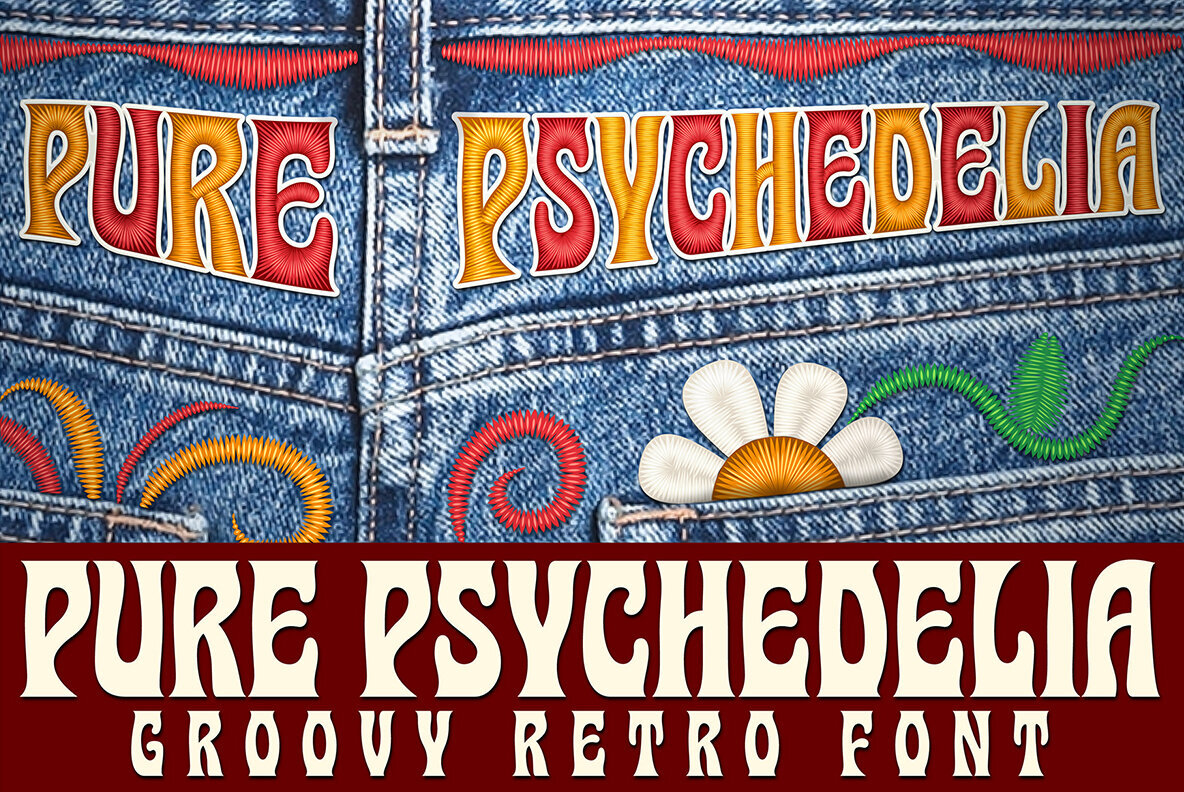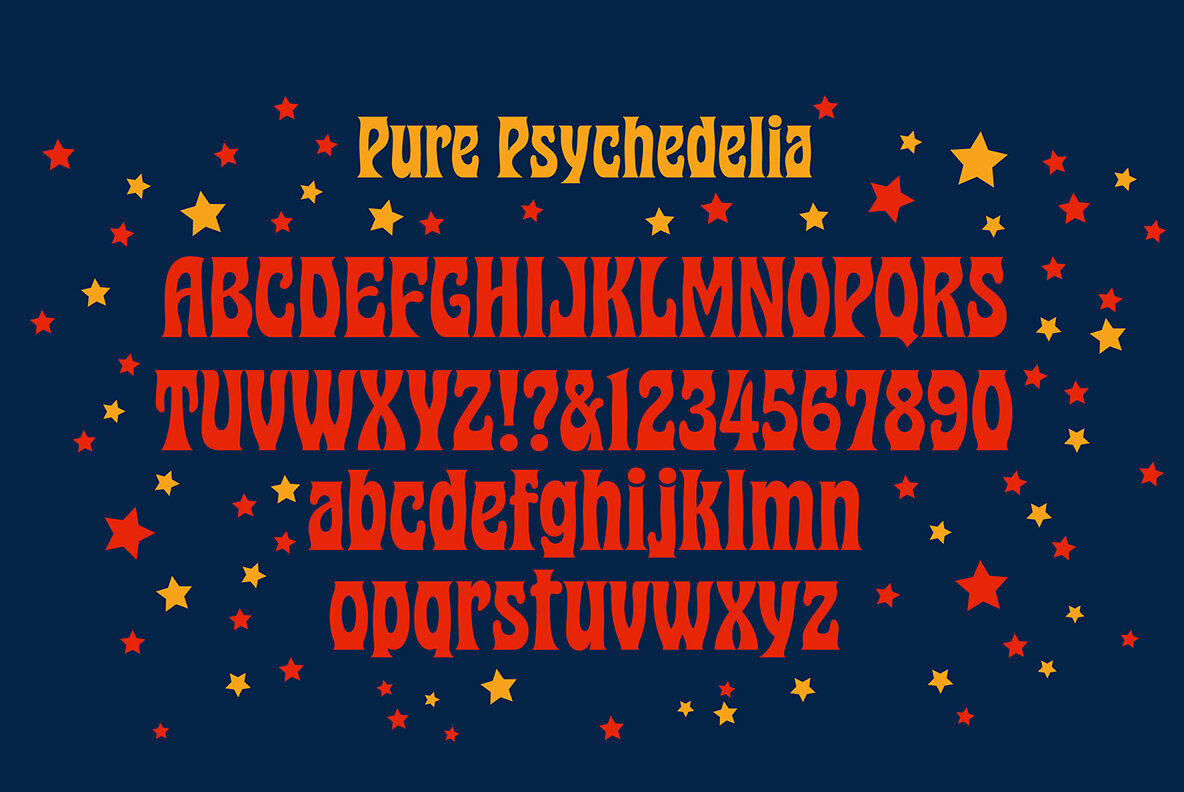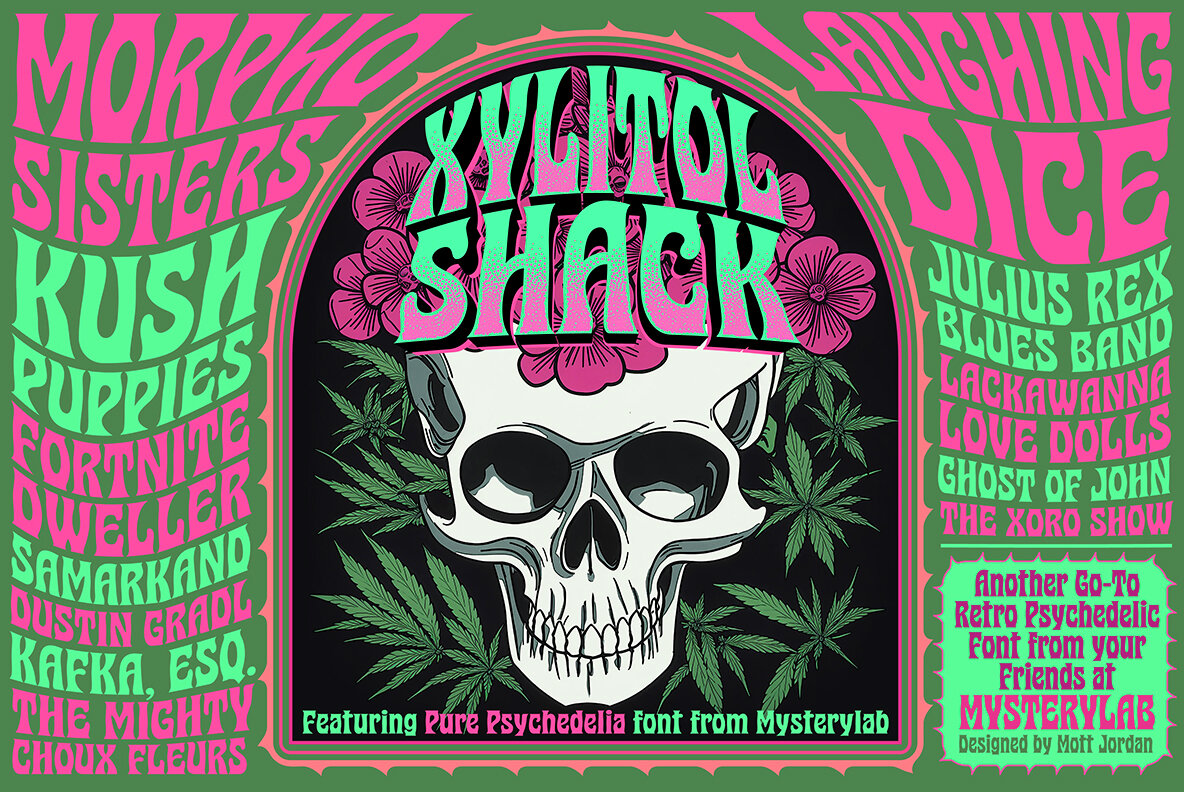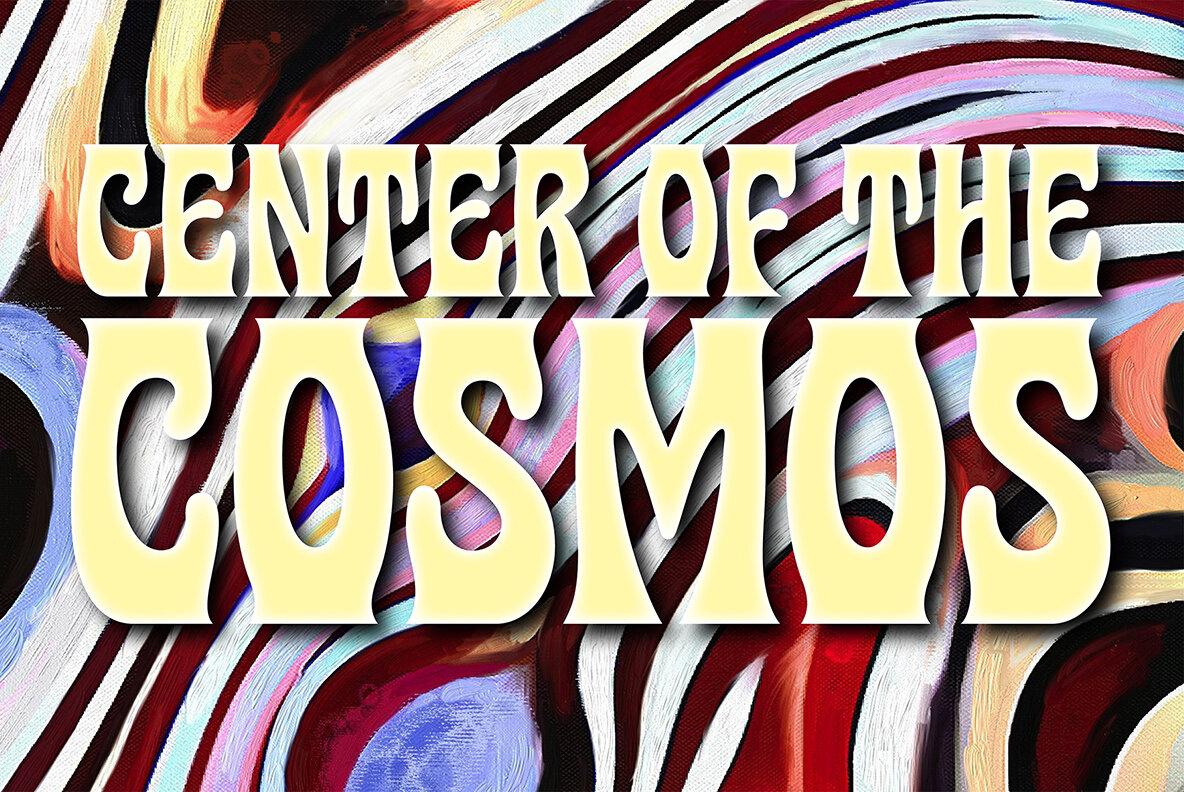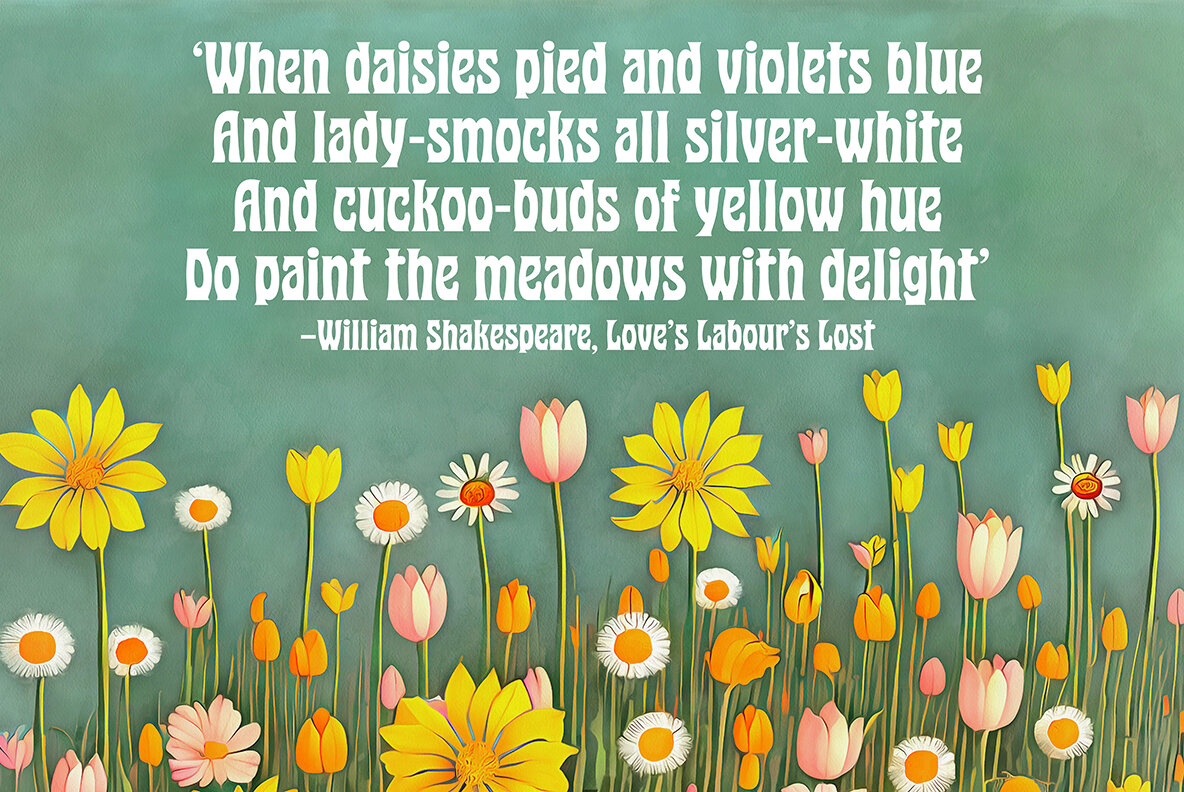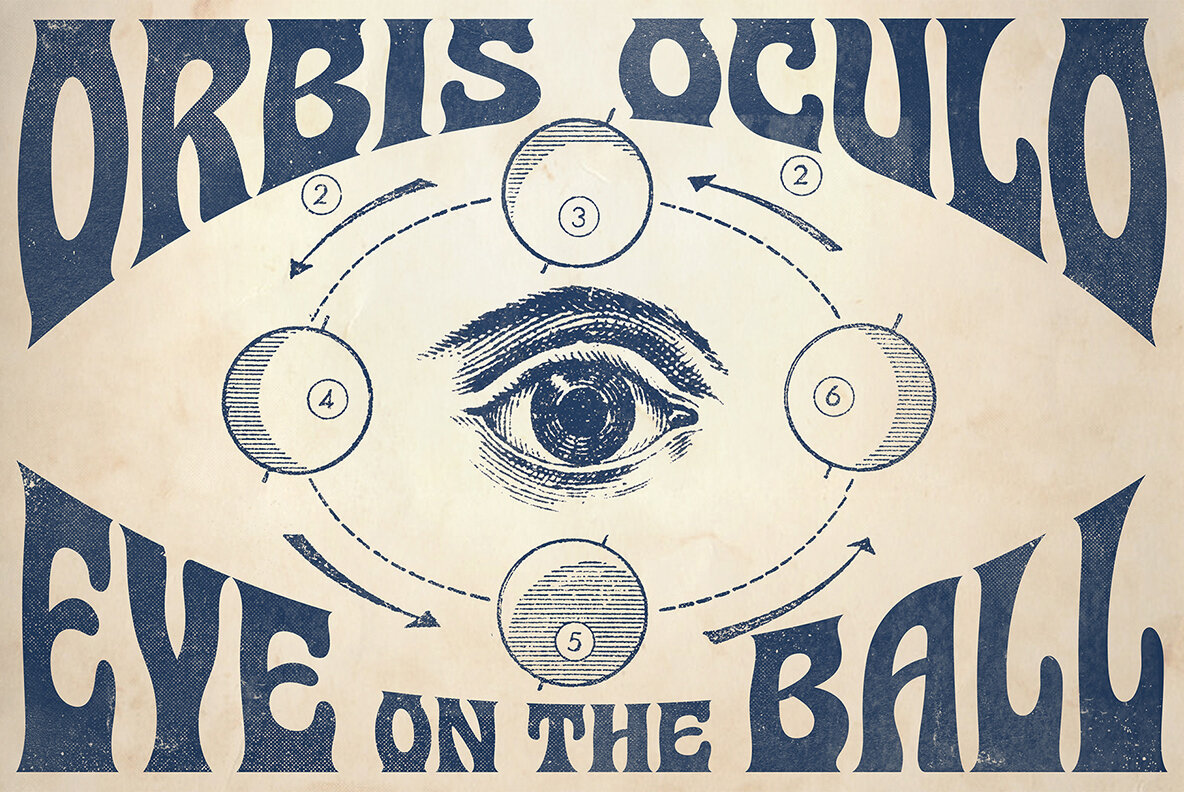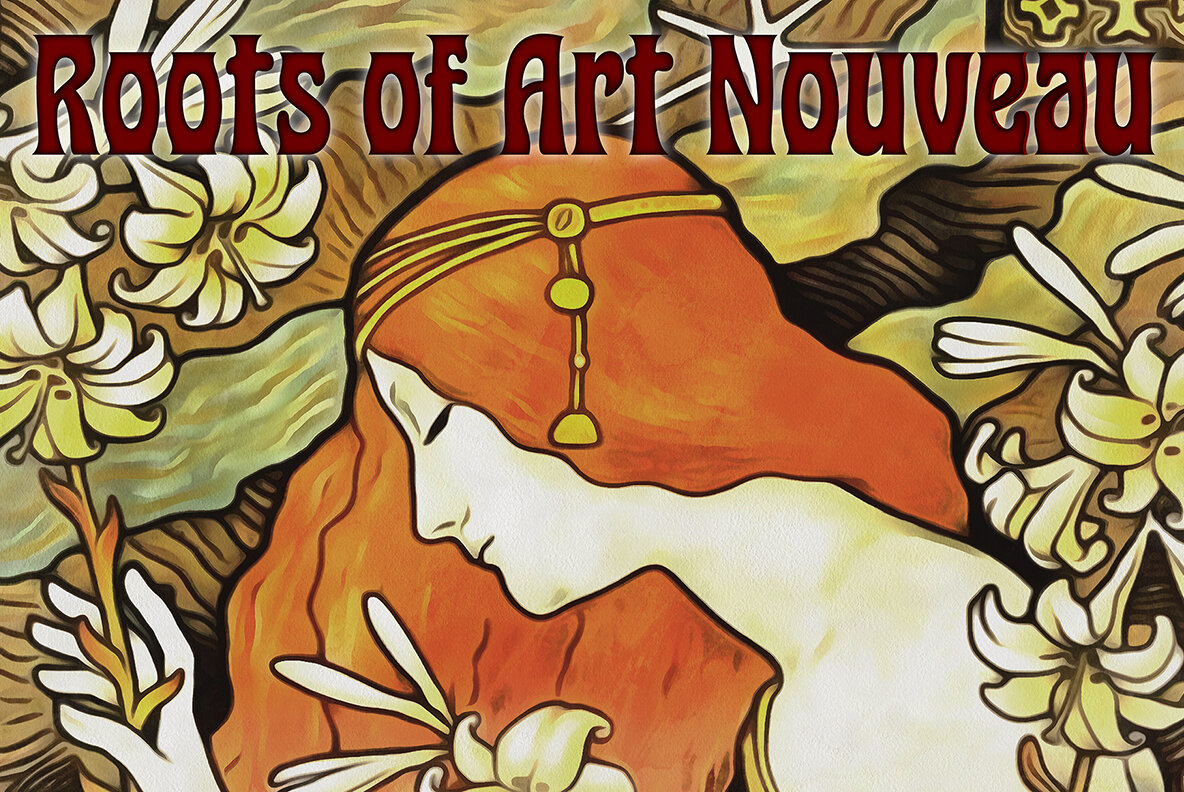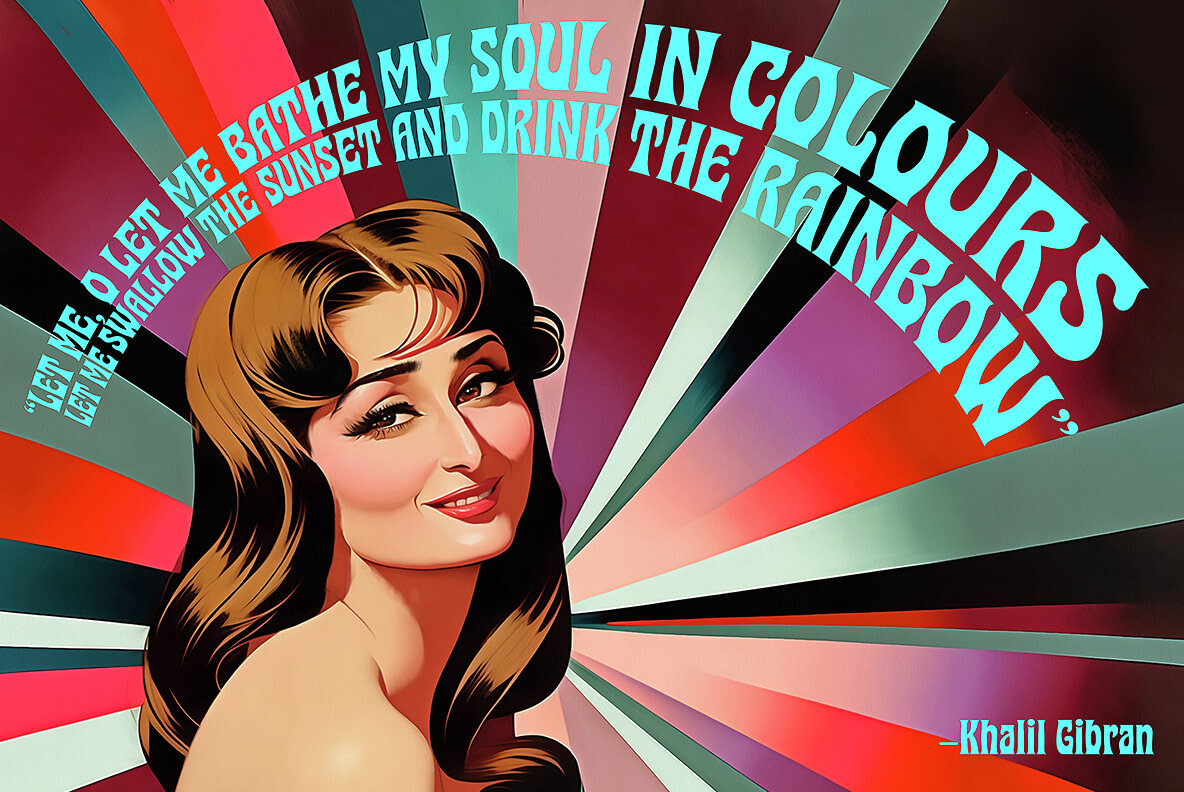
Pure Psychedelia Font
Pure Psychedelia Bold
Pure Psychedelia Bold Oblique
For a versatile timeless look that's sure to bring any groovy graphic idea to life, Mysterylab presents Pure Psychedelia. This condensed font is shot through with twin strands of modernized Art Nouveau and reimagined 1960s psych. This classic stylistic mélange is distilled down to a heady mix of hippy-trippy lava lamp blobs and assertively pointy end tapers, for a unique vibe and a dynamic linear flow. Pure Psychedelia comes in Bold and Bold Oblique.
Mott Jordan studied studio art and design at U.C. Santa Cruz, and was a self-employed sign painter and later a full-time graphic artist at a local weekly. His type design career began in earnest under Ilene Strizver at International Typographic Corporation in the mid-1990s, releasing two typefaces (ITC Verkehr...